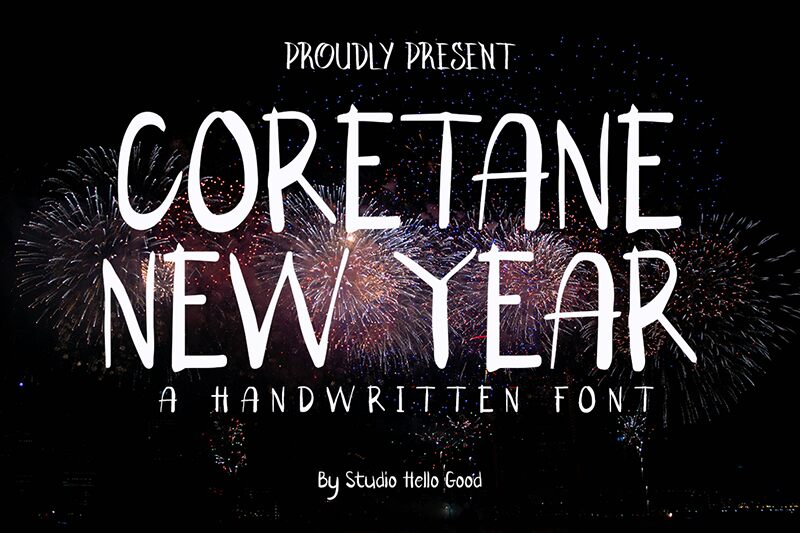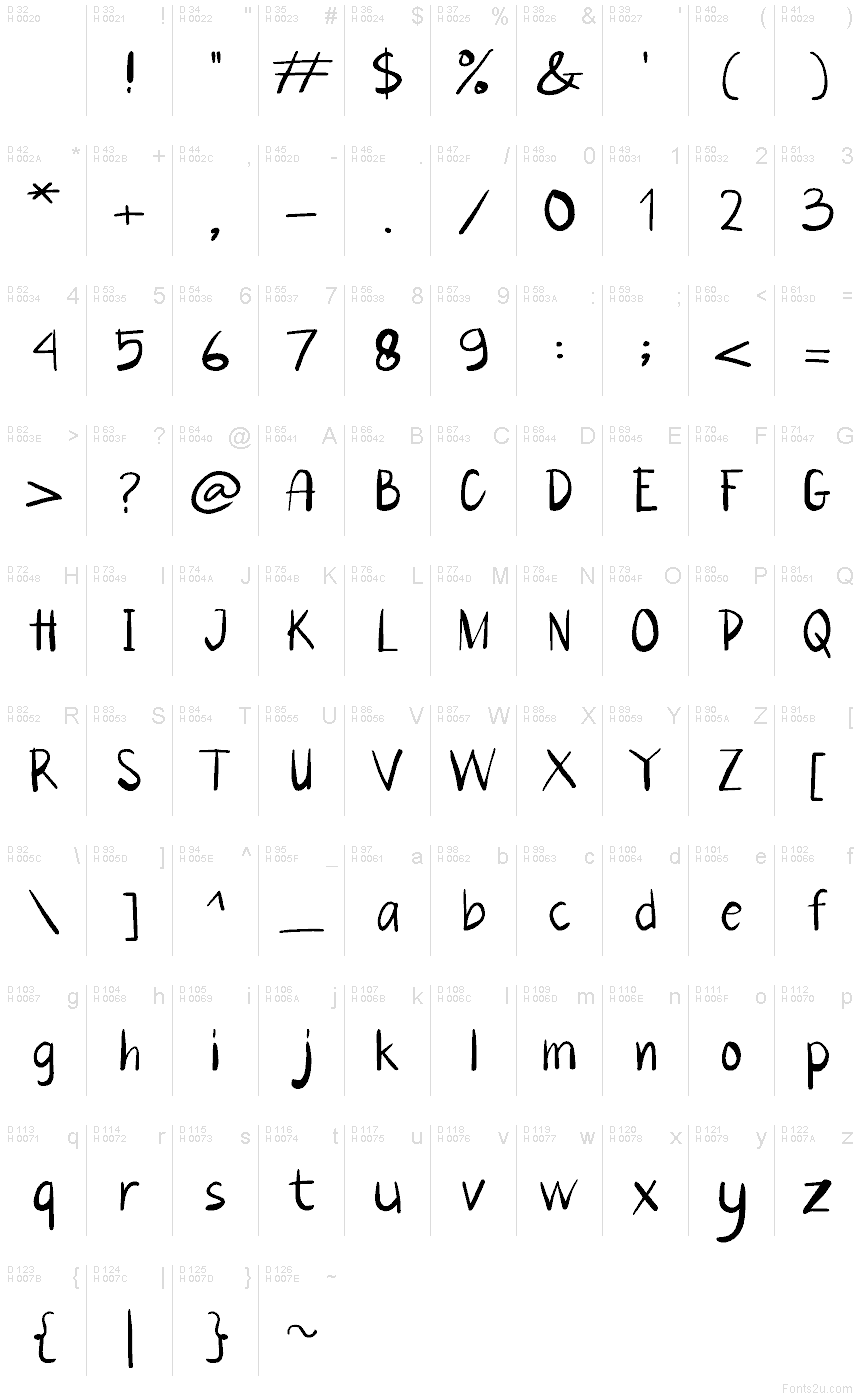
Coretane New Year
Coretane New Year font by Studio Hello Good is a free handwritten typeface that brings a cheerful, party-ready vibe to your layout. Letters bounce with a gentle slant and soft, brushlike edges, giving headlines a candid, ink-on-paper feel while staying neat and readable. The rhythm is lively but controlled, so you get character without chaos.
Using Coretane New Year, shine on seasonal banners, greeting cards, event invites, gift tags, planner covers, social posts, and festive packaging. The slim strokes and roomy counters keep lines airy, especially at larger sizes. For balance, pair this free font with a clean sans for body text, and let the script lead at 36–72 px for titles.